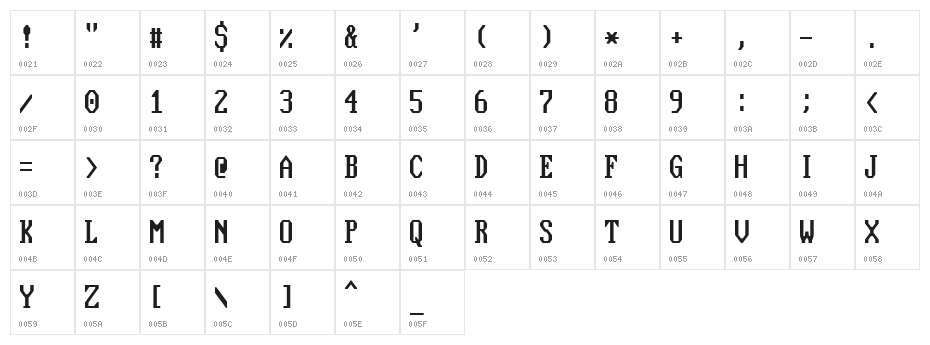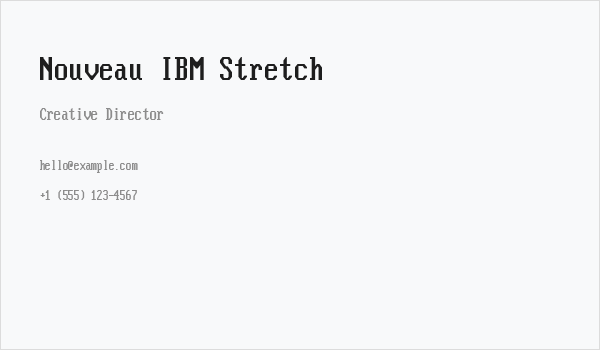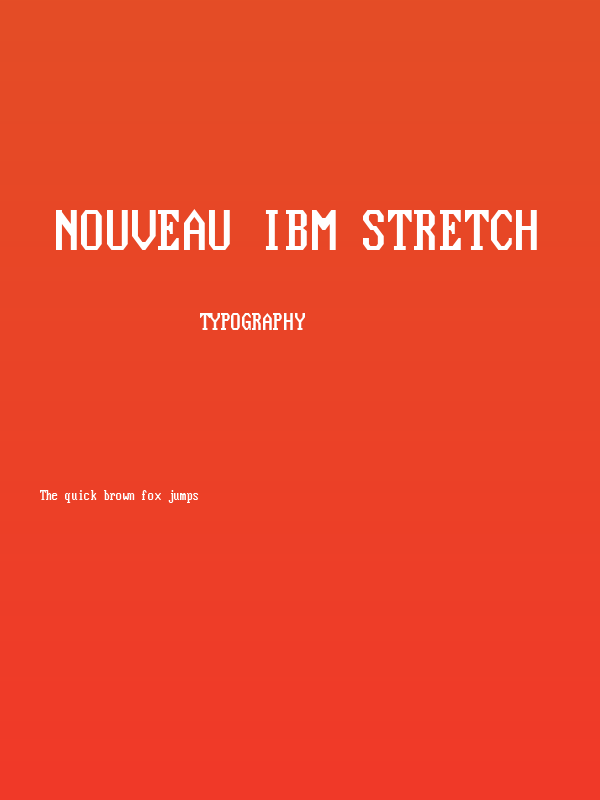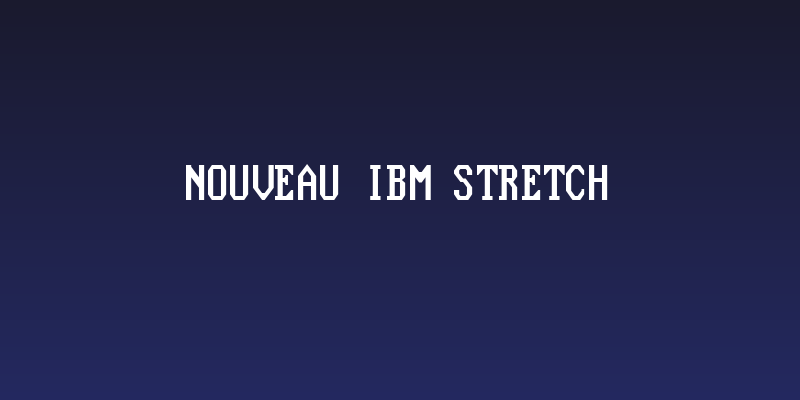
Nouveau IBM Stretch Font
Nouveau IBM Stretch Description
This font features a bold and structured design with a modern twist. The characters are elongated and have a geometric feel, with sharp angles and clean lines. The uppercase letters are particularly striking, with a tall and narrow appearance that gives them a commanding presence. The lowercase letters maintain the same geometric style, providing consistency across the typeface. Numbers and special characters are designed to match the overall aesthetic, ensuring a cohesive look. This font's unique style makes it stand out, while its readability remains intact.